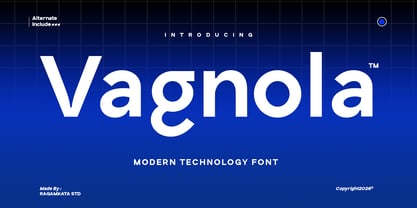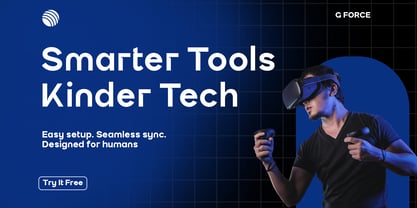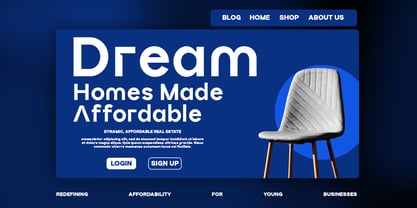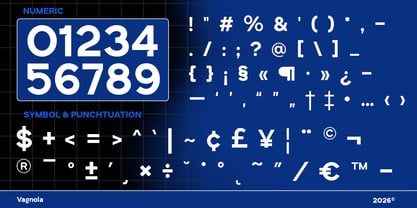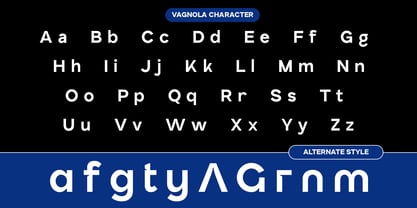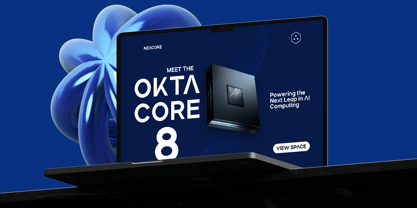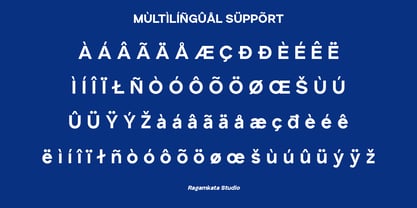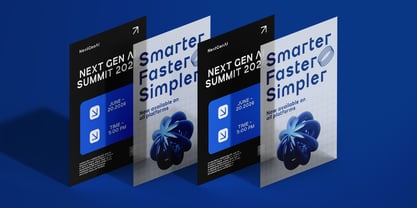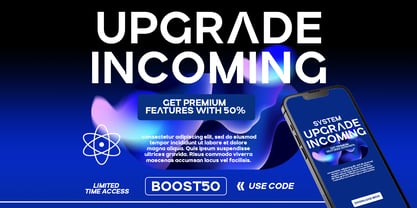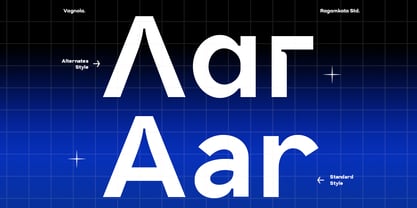
Vagnola
by RagamKata
The Vagnola Font Family was designed by Yogiswhara Dio Prakoso Riadi and published by RagamKata. Vagnola contains 2 styles and family package options. More about this family
Vagnola is a modern technology font designed to deliver a clean, futuristic, and high-tech visual identity. With its geometric structure, sharp edges, and precise proportions, this font reflects innovation, digital energy, and cutting-edge aesthetics. Vagnola is crafted for designers who want to create bold, powerful, and contemporary designs that instantly communicate technology and progress. Perfect for tech branding, startup logos, AI projects, gaming interfaces, futuristic posters, cyberpunk visuals, digital products, UI/UX design, esports branding, software identities, modern websites, and tech event promotions. Its strong character and sleek forms make Vagnola ideal for designs that require clarity, speed, and a forward-thinking personality. Combining minimalism with futuristic appeal, Vagnola delivers a professional and high-impact typographic solution for modern creators. Whether used for branding, editorial layouts, digital platforms, or motion graphics, this font helps your projects stand out with a bold technological presence and premium modern style. Thank You! Ragamkata
Designers: Yogiswhara Dio Prakoso Riadi
Foundry: RagamKata